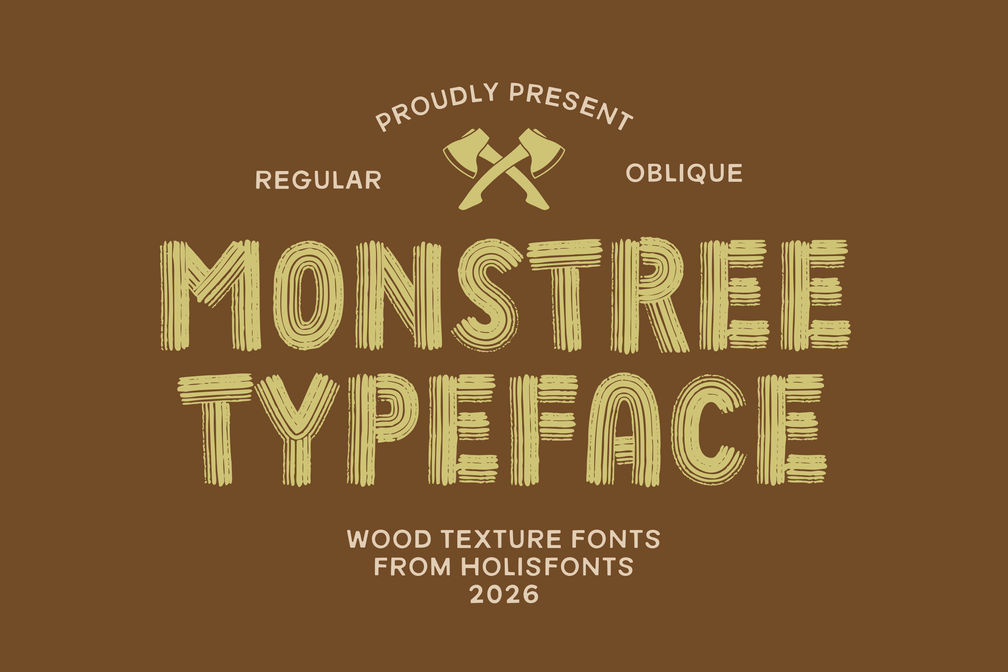
Monstree | Rustic Wood Textured Display Font
Bring Nature to Your Designs with Monstree
Unleash the rugged, organic beauty of the great outdoors with Monstree, a premium hand-carved wood-textured display font. Designed with a striking wood-grain texture, this all-caps typeface is perfect for projects that demand a bold, natural, and adventurous look.
Monstree comes in two distinct styles—Regular and Oblique—and is packed with unique alternate characters to give your typography a truly custom, handcrafted feel. Perfect for headlines, merchandise, and nature-themed designs.
Key Features:
• Authentic Wood Grain Texture: Highly detailed, organic lines that mimic hand-carved wood.
• Two Styles Included: Clean Regular and dynamic Oblique styles.
• All-Caps Design: Perfect for bold headlines, logos, and high-impact branding.
Perfect Use:
• Outdoor, adventure, and camping branding
• Packaging, labels, and merchandise design
• Craft brewery, coffee shop, and rustic restaurant logos
• Editorial headlines and bold event posters